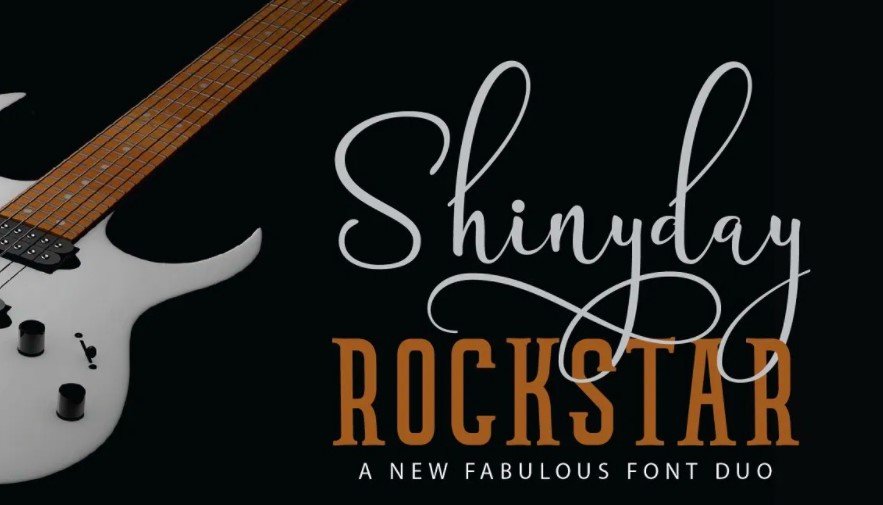
Presenting the most spiritual and brilliant textured typeface you can use for free: Shinyday & Rockstar Font. This typeface features a fashionable and elegant script font with stylish alternates.
This is one of the best high-quality typefaces that is great to use in large posters and calligraphy designs. The font will work great when you will use it with the combination of the font.
| Name | Shinyday & ROCKSTAR Font |
| Style | Signature |
| Designer | Creative Market |
The charming and beautiful signature typeface works great with the combination of aileron font. This is the perfect typeface font that is best to use in websites, blogs, PowerPoint presentations, vehicle wraps, and banners.